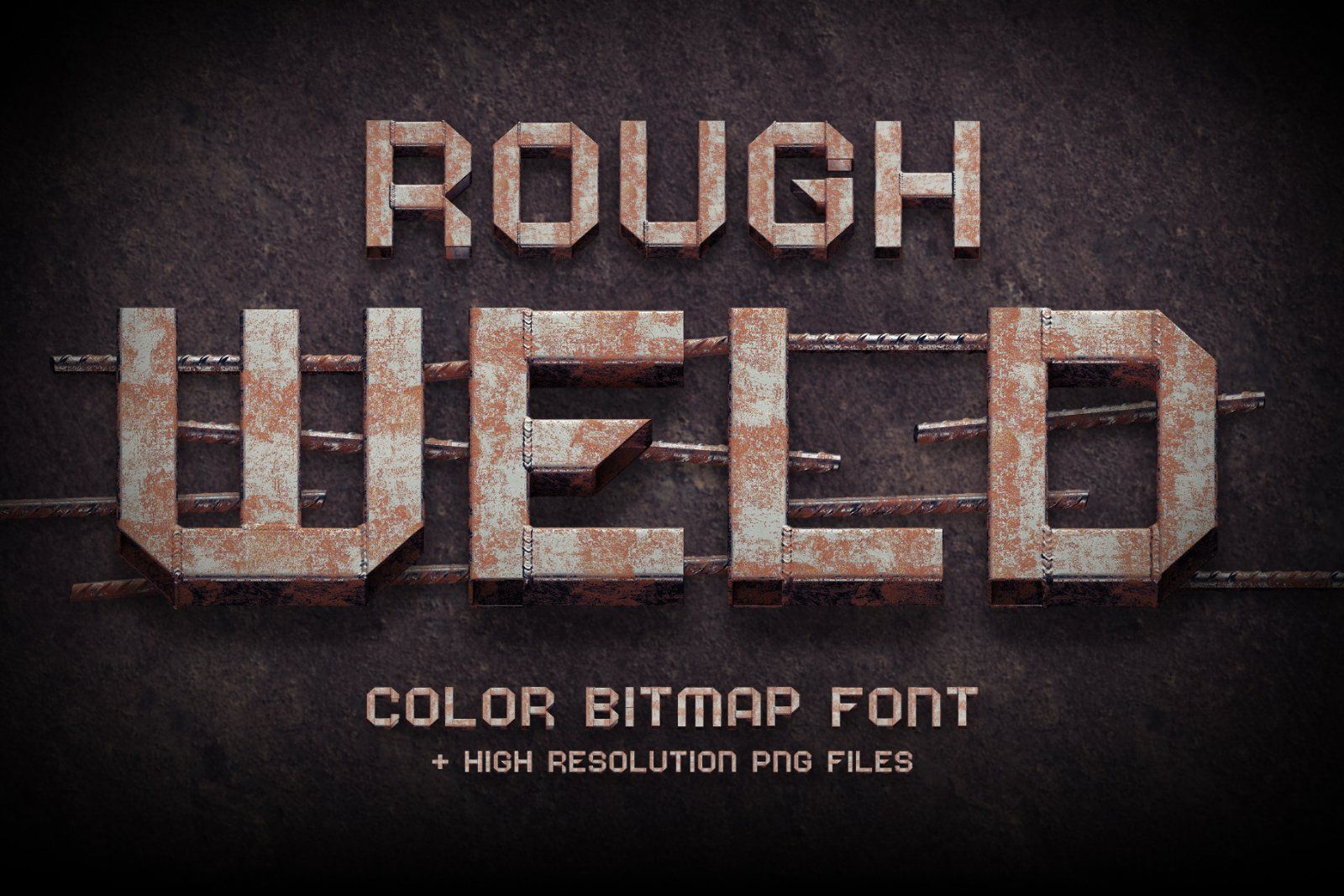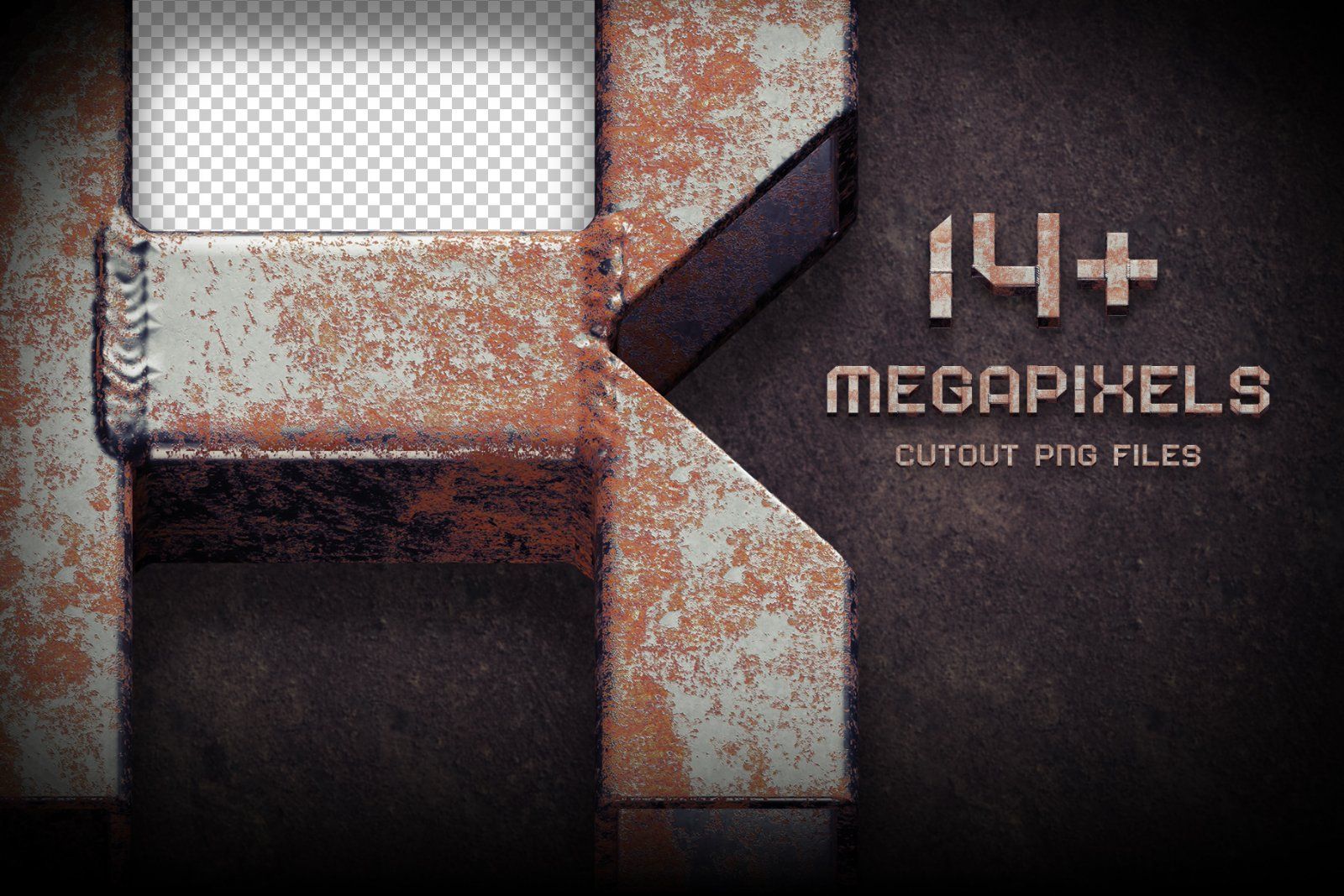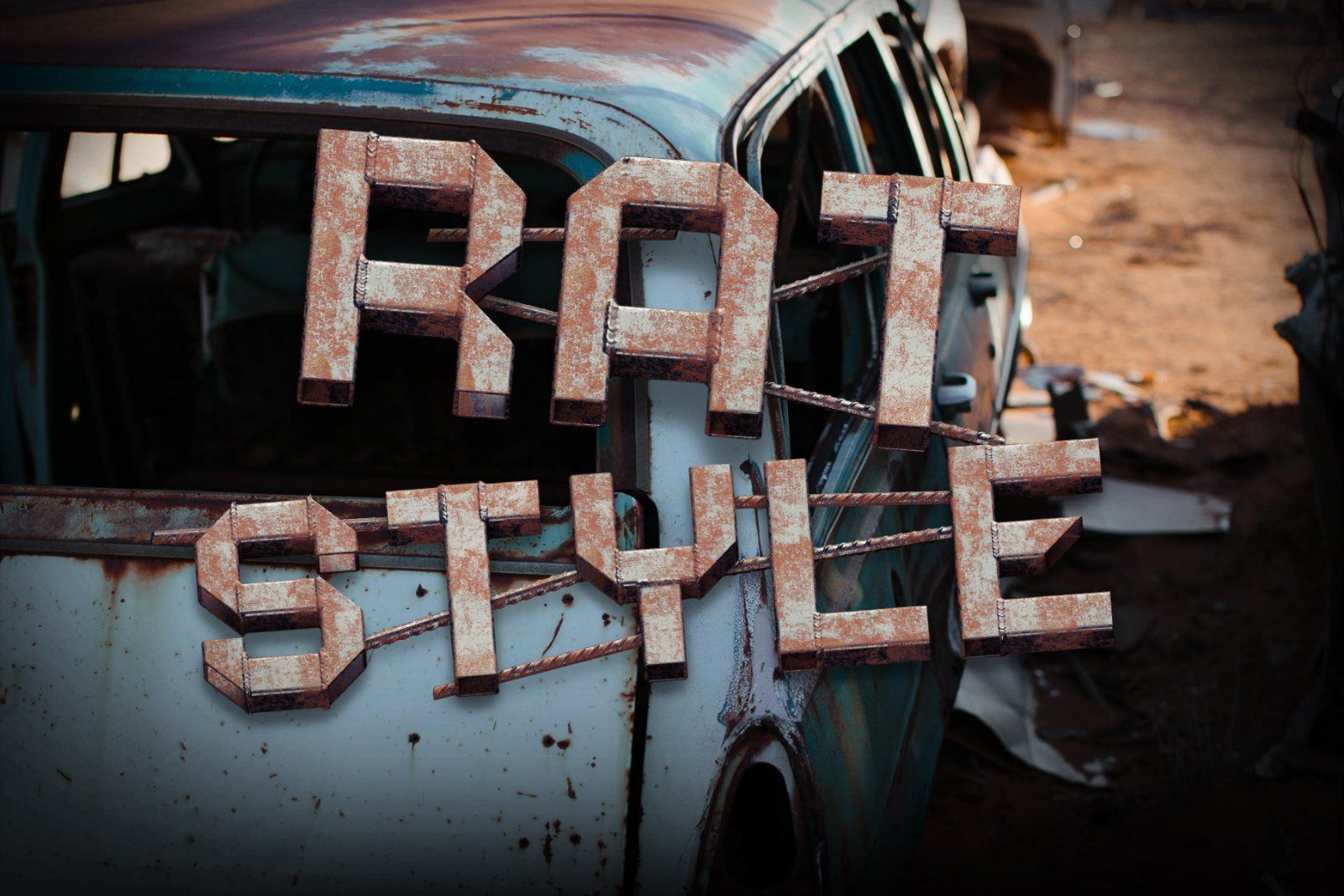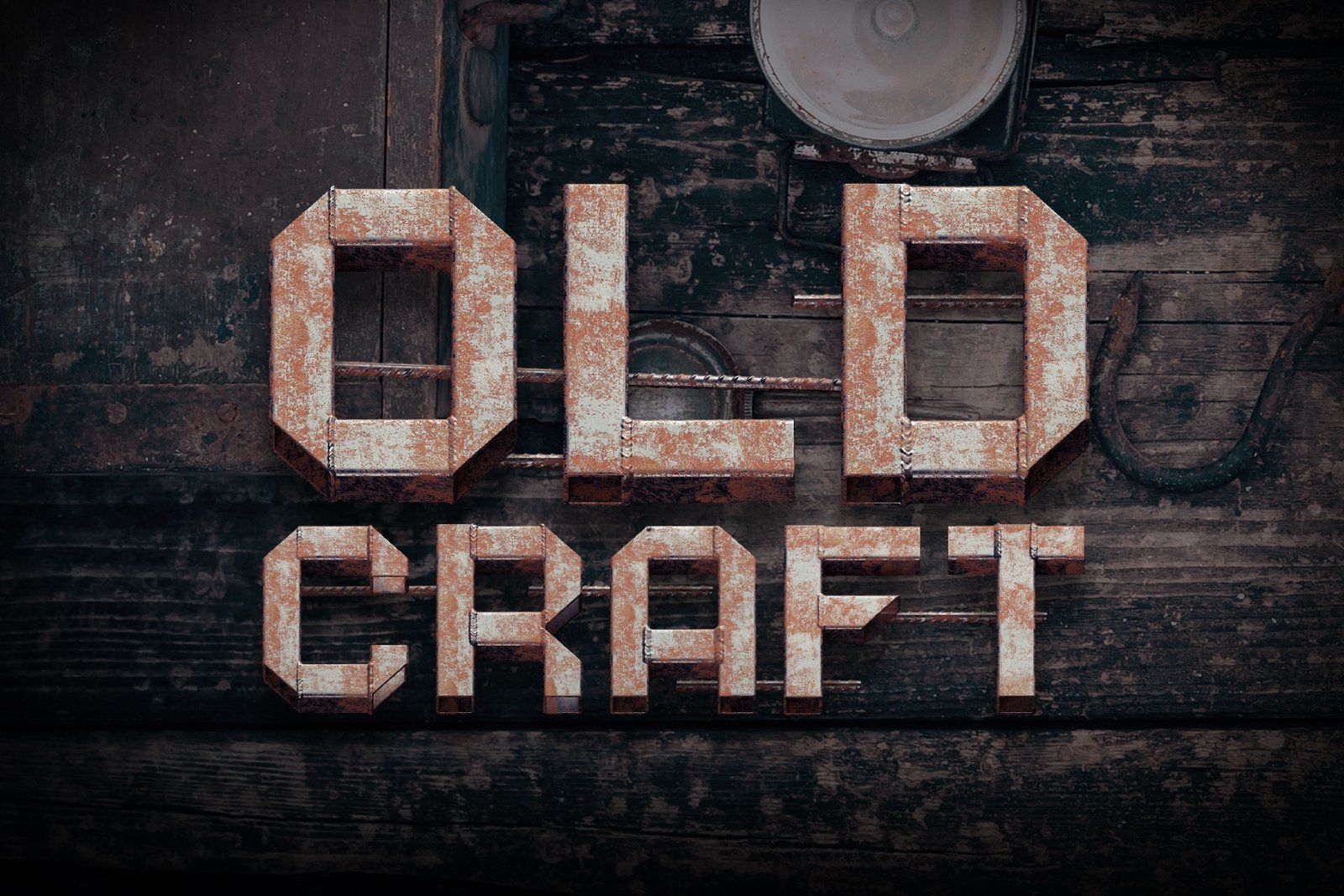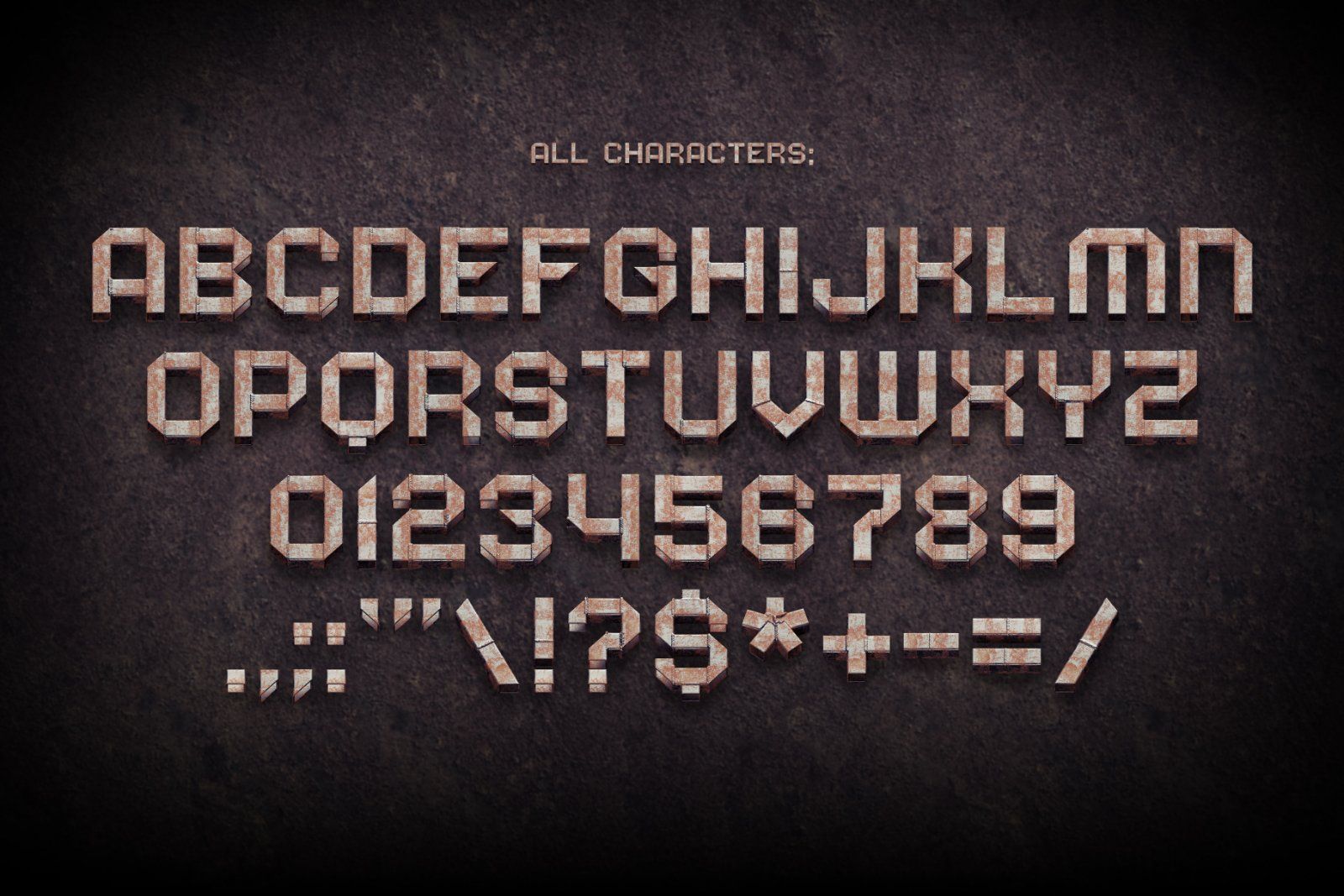
Hello! Presenting a rusted metal font named Rough Weld. It's a 3d rendered high quality typeface made of square metal pipes with aged textured surface. First of all it's a color bitmap OpenType-SVG font that can be used as a usual OTF font. Also a set of full resolution PNG files with transparent background is included. Also few armature rods are available in PNG.
P.S: Only English language and basic punctuation is supported, please check out the screenshot with all available characters.